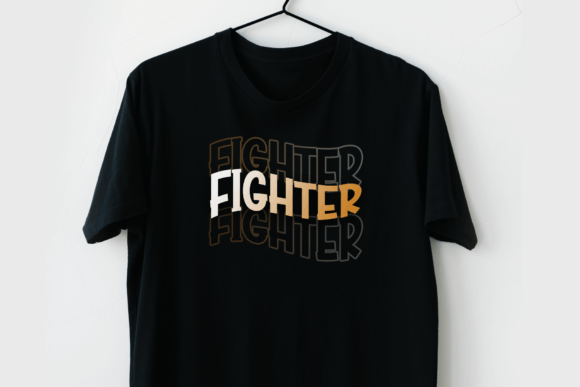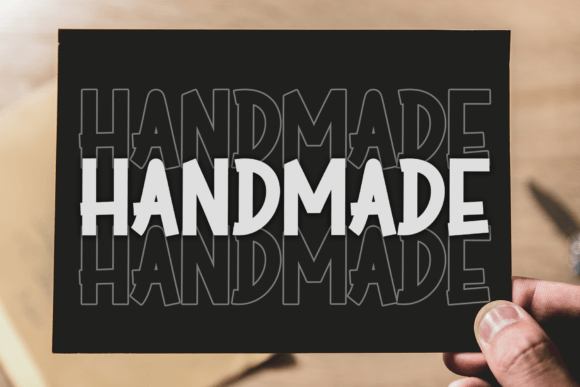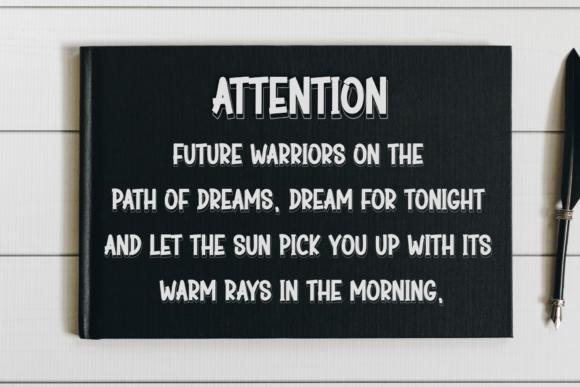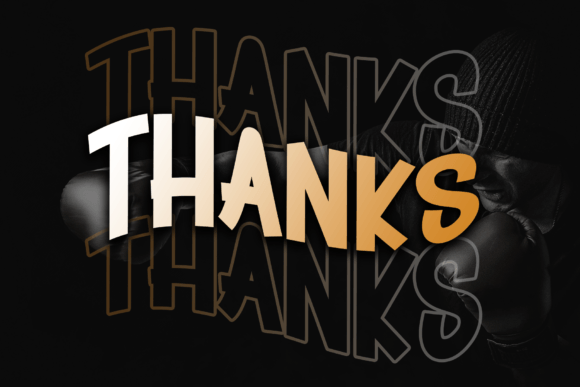
Fighting Font: Elevate Your Designs with Elegance and Timeless Style
Are you on the hunt for a font that adds a touch of sophistication and elegance to your designs? Look no further than the Fighting Font, a stunning display font that is sure to capture your heart. With its unique blend of refinement and playfulness, this font is perfect for designers and crafters looking to create spectacular designs that stand out from the crowd.
What is Fighting Font?
Fighting Font is a beautifully crafted display font that boasts an elegant touch, making it ideal for a wide range of projects. Whether you’re working on a logo, branding materials, or marketing collateral, this font is sure to make a lasting impression. Its incredibly distinct and timeless style sets it apart from other fonts, making it a versatile choice for any design project.
Key Features of Fighting Font
- Elegant Touch: Fighting Font features an elegant touch that adds a level of sophistication to any design.
- Distinct and Timeless Style: Its unique style ensures that your designs will stand the test of time and remain visually appealing.
- Versatile: Perfect for a wide range of projects, from logos and branding materials to marketing collateral and more.
- Easy to Read: Despite its elegant and stylish design, Fighting Font remains easy to read, making it perfect for body text and headlines.
Why Choose Fighting Font?
With so many fonts available, why choose Fighting Font? Here are just a few reasons why designers and crafters are falling in love with this stunning display font:
- Unique Style: Fighting Font’s unique style ensures that your designs will stand out from the crowd and grab attention.
- High-Quality Design: Crafted with attention to detail, Fighting Font is a high-quality font that will elevate your designs.
- Easy to Use: With its clear and concise design, Fighting Font is easy to use and pairs well with a wide range of other fonts.
- Perfect for a Wide Range of Projects: Whether you’re working on a logo, website, or marketing materials, Fighting Font is a versatile choice that will meet your design needs.
How to Use Fighting Font
Ready to fall in love with Fighting Font? Here are a few tips on how to use this stunning display font in your designs:
- Pair with Other Fonts: Experiment with pairing Fighting Font with other fonts to create a unique and visually appealing design.
- Use for Headlines and Titles: Fighting Font is perfect for headlines and titles, adding a touch of elegance and sophistication to your designs.
- Add to Your Brand Identity: Use Fighting Font to create a consistent brand identity that sets your business apart from the competition.
In conclusion, Fighting Font is a stunning display font that is sure to elevate your designs with its elegant touch and timeless style. With its unique blend of refinement and playfulness, this font is perfect for designers and crafters looking to create spectacular designs that stand out from the crowd. So why wait? Fall in love with Fighting Font today and take your designs to the next level!
Whether you’re a seasoned designer or just starting out, Fighting Font is a must-have font that will become a staple in your design toolkit. So go ahead, get creative, and see the amazing things you can create with Fighting Font!